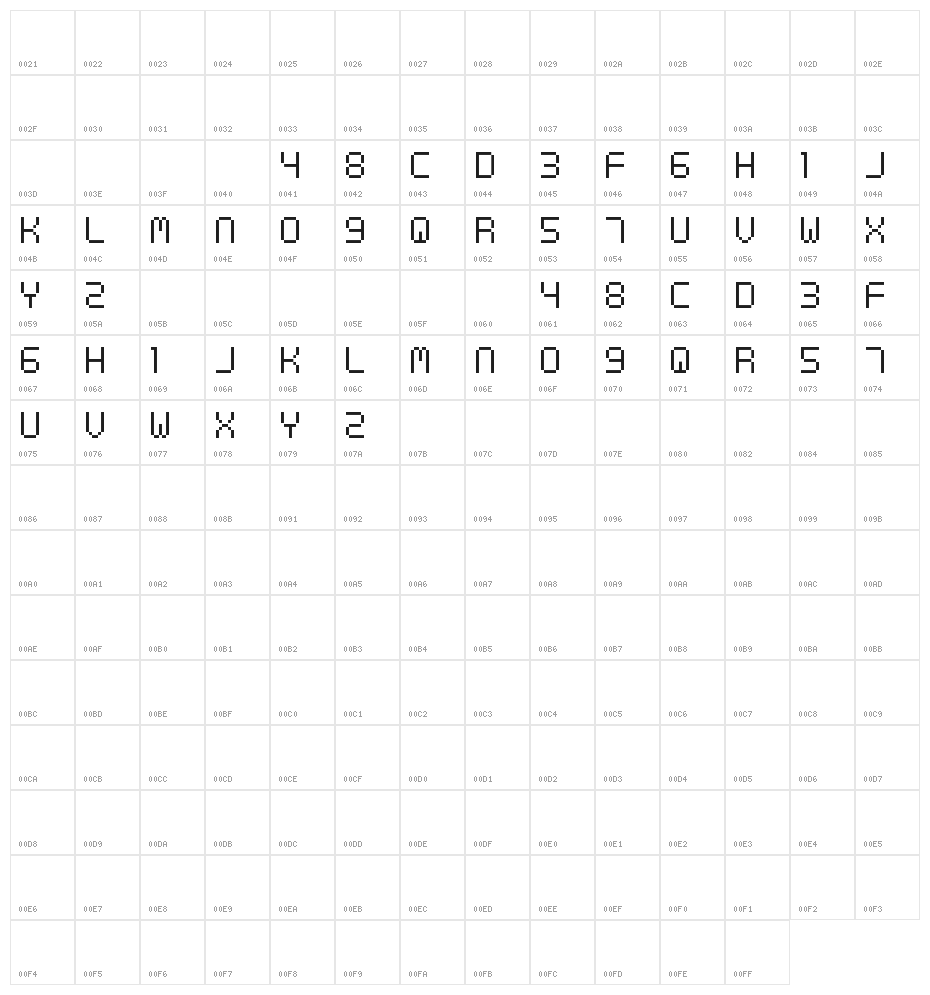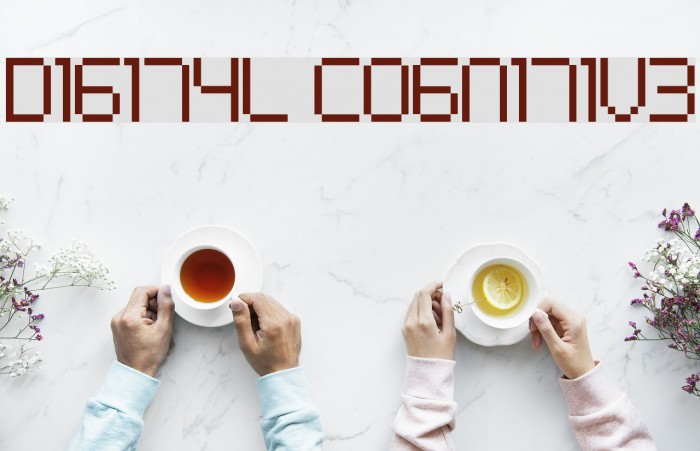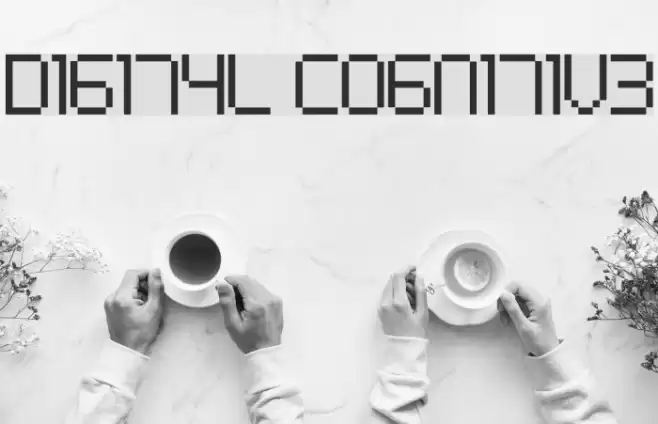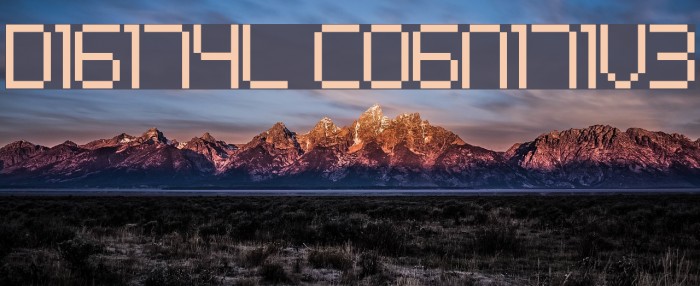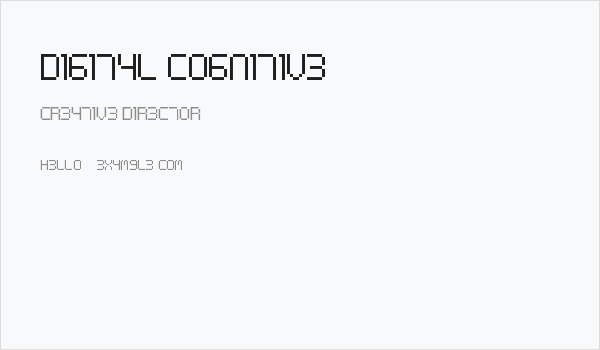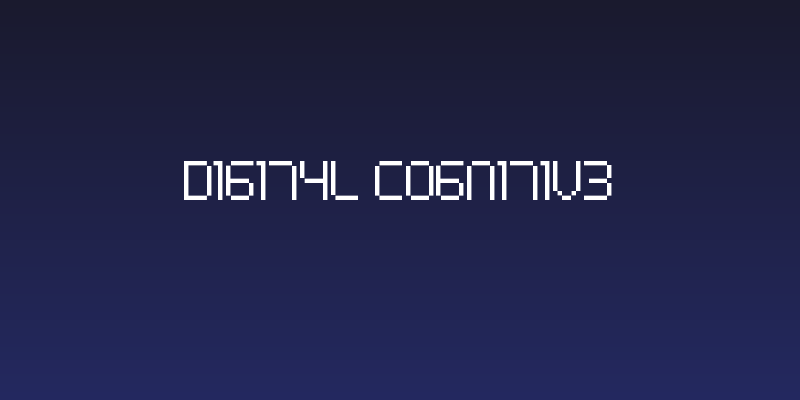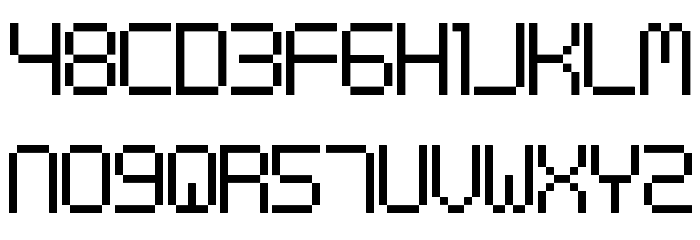
Digital cognitive Font
Digital cognitive Description
This font features a pixelated, blocky design reminiscent of early digital displays and retro video games. Each character is constructed from a grid of square pixels, giving it a distinctly digital and technical appearance. The uniformity in stroke width and the geometric precision of the characters contribute to a cohesive and structured look. The font lacks any curves, relying solely on straight lines and right angles, which enhances its mechanical and futuristic aesthetic. This style is particularly effective for conveying a sense of nostalgia for classic computing and gaming eras. The characters are evenly spaced, maintaining a consistent rhythm across the text.
| Use Case | Logos, Headlines, Digital Art |
| Proposed Projects | Ideal for retro video game designs, digital art projects, tech-themed posters, and any creative work that seeks to evoke a sense of nostalgia for early computing. |